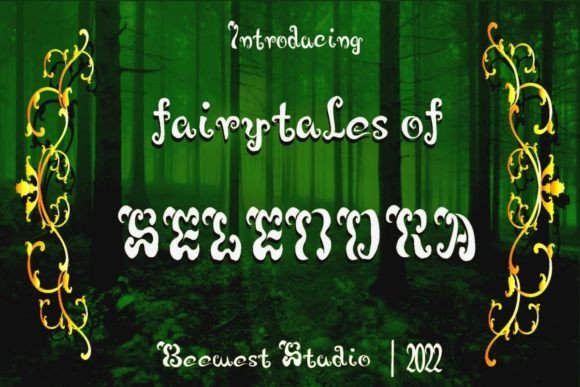
Embark on an enchanting journey to the world of Selendra Font, a tapestry of ancient Indonesian culture and modern artistry. Inspired by the ethereal beauty of the "Kawi Script," this display font exudes an aura of mystery and wonder.
Step into a realm where words dance with grace and elegance. Selendra Font's lovingly crafted characters capture the essence of folklore and fairytales, transporting you to a world of imagination and enchantment. Its exquisite curves and intricate details evoke the wisdom of ancient scribes, whispering tales of forgotten realms and magical quests.
Unleash your creativity with Selendra Font. Its versatility knows no bounds, harmoniously adorning titles of mythology storybooks, enchanting fairytales, and captivating folklore tales. Whether you seek to evoke the grandeur of ancient civilizations or ignite the spark of imagination in young minds, Selendra Font is the perfect companion.
Indulge in its beauty and let its timeless charm inspire your writing. Selendra Font is more than just a typeface; it's a key that unlocks the door to a world of enchantment. Embrace its magic today and let your words dance with the stars.